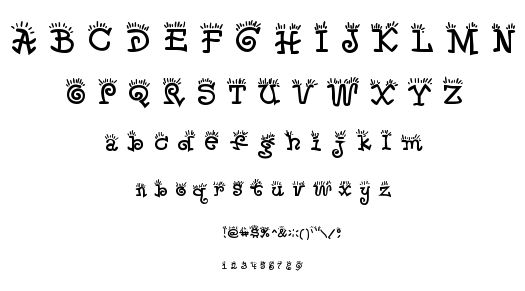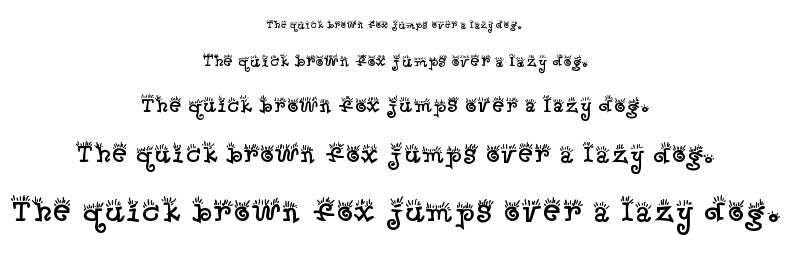
Waker is a font that can’t wait until later in the day like it probably should. Show some restraint, epicurean font. Don’t forget to read the files inside the zip for details. Updated in 2012.